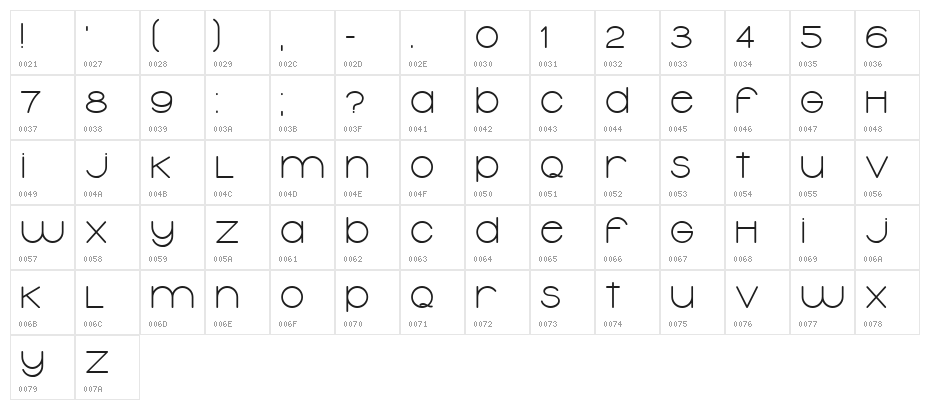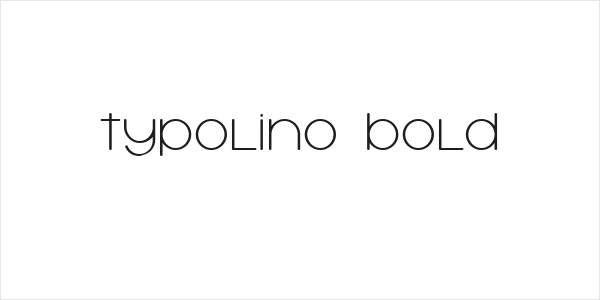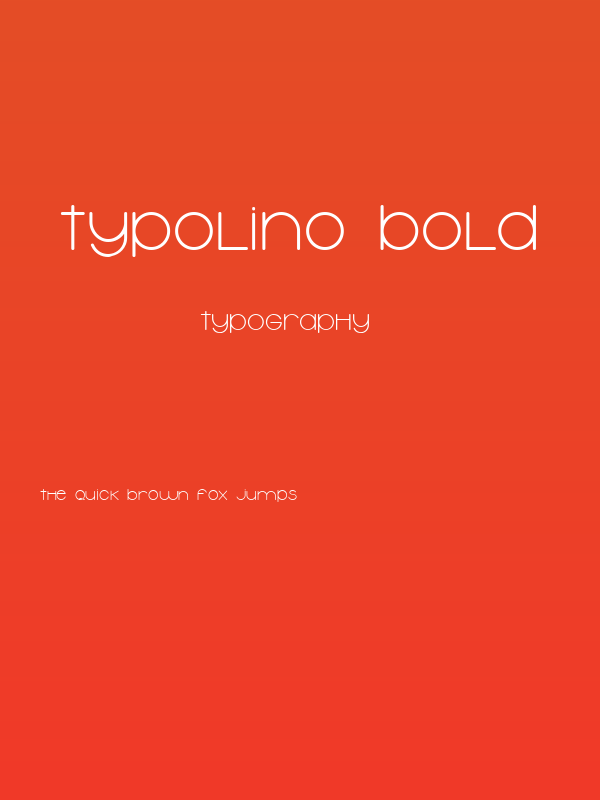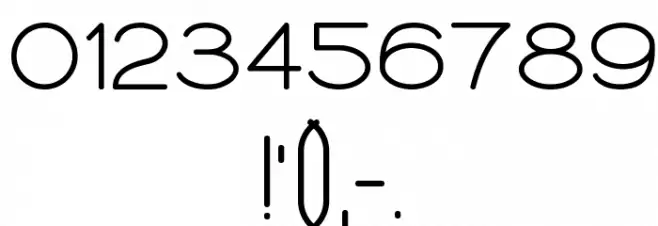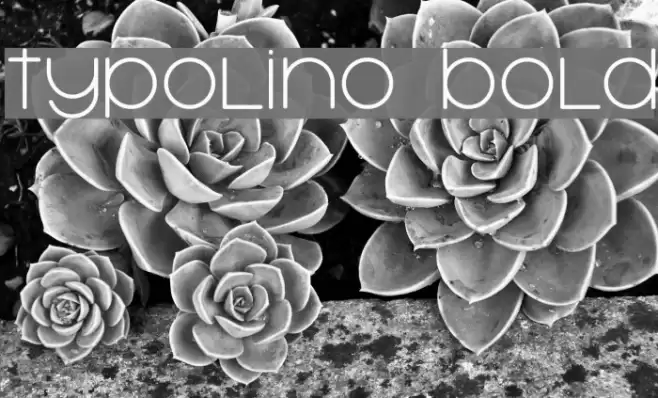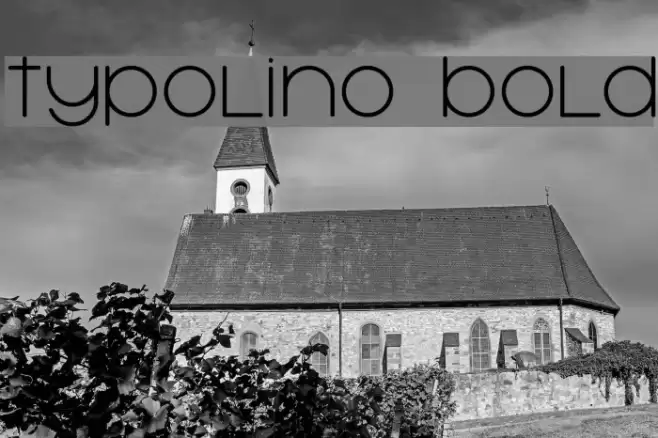
Typolino Bold Font
Typolino Bold Description
This font features a clean and modern design with a geometric structure. The characters are rounded and uniform, creating a harmonious and balanced appearance. The uppercase and lowercase letters maintain a consistent style, with smooth curves and minimalistic lines. The numerals are distinct and easy to read, complementing the overall aesthetic. Special characters are designed to match the font's sleek and contemporary look, making it versatile for various applications.
| Use Case | Headlines, Logos, Digital Media |
| Proposed Projects | Ideal for branding, advertising, and digital media projects that require a clean and modern aesthetic. |